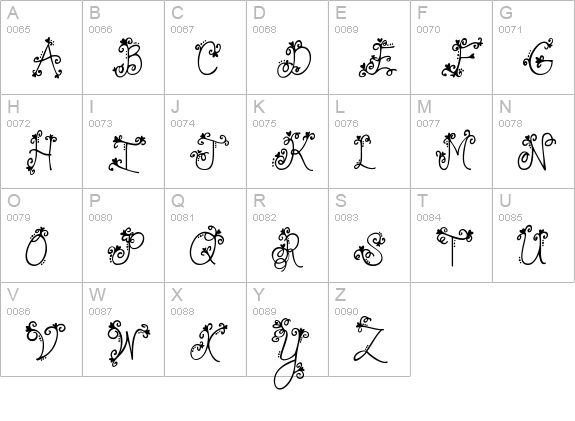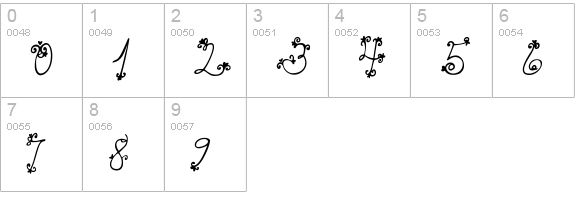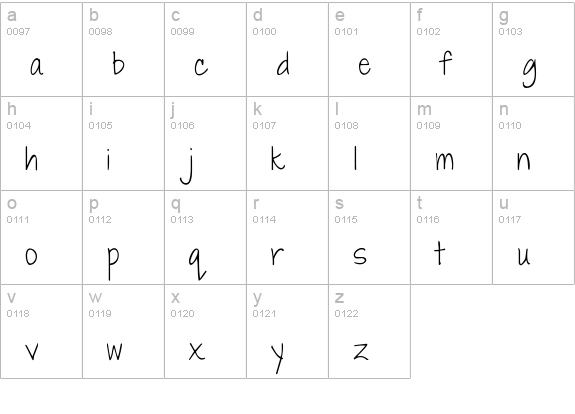
Janda Swirly Twirly Font Details
Introducing the captivating Janda Swirly Twirly font, a whimsical and playful typeface that will add a touch of charm to any project. With its intricate swirls and twirls, this font exudes a sense of elegance and creativity. Janda Swirly Twirly font is perfect for a wide range of applications, from wedding invitations and greeting cards to logos and branding materials. Its unique design is sure to catch the eye and leave a lasting impression on your audience. But what makes this font even more appealing is that it is available for free! That's right, you can freely download Janda Swirly Twirly font at FontsMarket.com. This means that you can add a touch of sophistication to your designs without breaking the bank. Whether you're a professional designer or someone who simply enjoys getting creative, Janda Swirly Twirly font is a must-have in your font collection. Its versatility and beauty will inspire you to create stunning designs that stand out from the crowd. So why wait? Go ahead and download Janda Swirly Twirly font today from FontsMarket.com and let your imagination run wild. Elevate your projects with this delightful typeface and bring your ideas to life with ease.